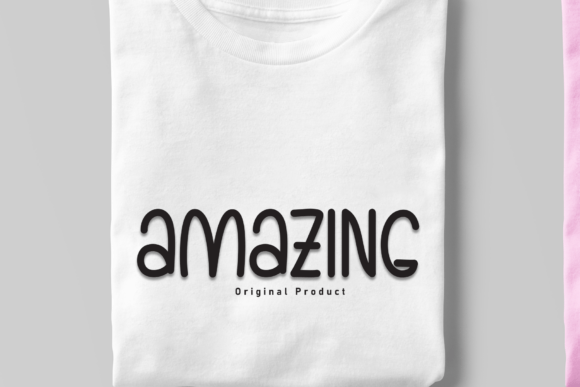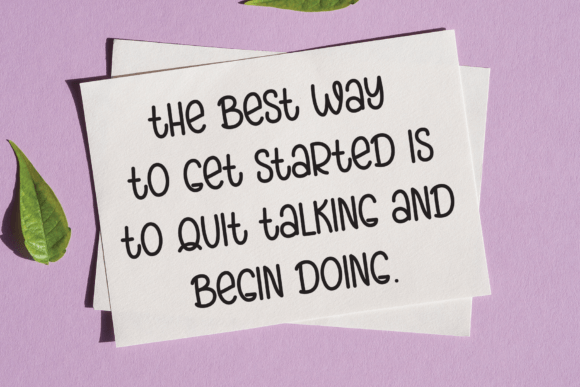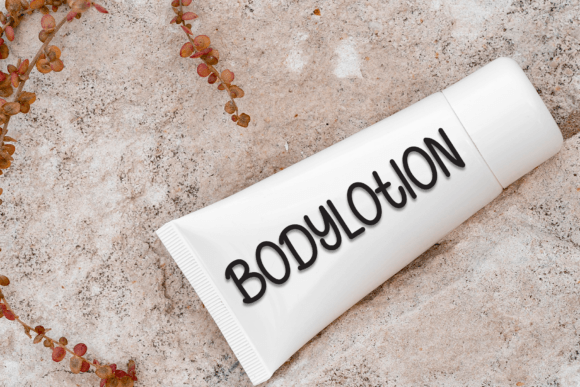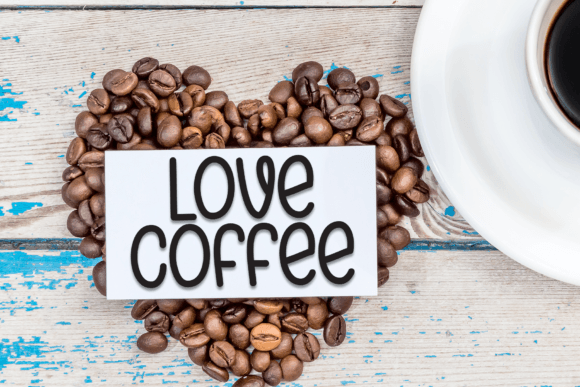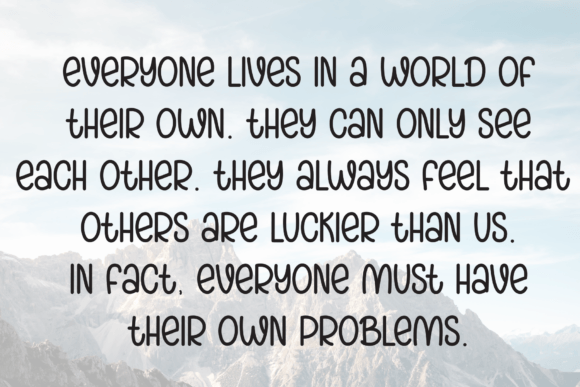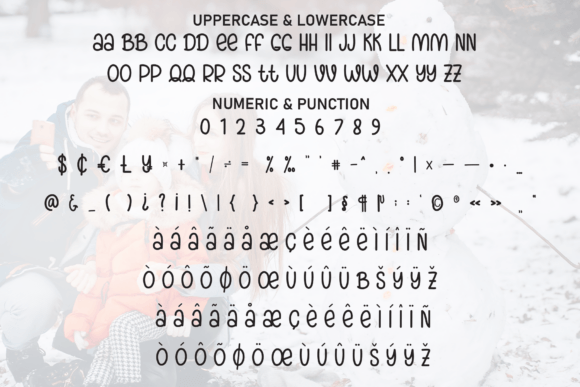
Daddy Snowman Font: The Ultimate Display Font for Adding Warmth and Charm to Your Designs
Are you looking for a font that can add a touch of warmth and friendliness to your designs? Look no further than the Daddy Snowman Font. This beautifully crafted handwritten display font is designed to infuse sweetness and charm into every stroke, making it perfect for wedding invitations, cards, and any design that seeks an endearing touch.
A Font that Exudes Joy and Creativity
The Daddy Snowman Font is inherently delightful and captivating, with a jovial spirit that is sure to bring a smile to anyone’s face. Its soft and whimsical strokes exude a sense of creativity and joy, making it the perfect addition to any design. Whether you’re a designer, crafter, or DIY enthusiast, this font is sure to inspire you to create something truly special.
Wedding invitations and cards are a great way to showcase the Daddy Snowman Font. Its elegant and whimsical strokes make it perfect for adding a touch of romance and charm to your wedding stationery. Imagine setting the tone for your special day with a beautiful handwritten font that exudes love, joy, and happiness.
The Daddy Snowman Font is not just limited to wedding invitations and cards. Its versatility makes it perfect for a wide range of design projects, including:
- Party invitations and decorations
- Stationery and journaling
Why Choose the Daddy Snowman Font?
So why choose the Daddy Snowman Font over other display fonts? Here are just a few reasons:
- Unique and eye-catching: The Daddy Snowman Font is a one-of-a-kind font that is sure to grab attention and stand out from the crowd.
- Easy to read: Despite its whimsical nature, the Daddy Snowman Font is surprisingly easy to read, making it perfect for body text and headings.
- Highly versatile: The font comes in a range of styles and weights, making it suitable for a wide range of design projects.
- Impeccable quality: The Daddy Snowman Font is meticulously crafted to ensure that it is of the highest quality, with clean lines and precise curves.
Tips for Using the Daddy Snowman Font
Here are a few tips for getting the most out of the Daddy Snowman Font:
- Use it sparingly: While the Daddy Snowman Font is beautiful, it can be overwhelming if used too much. Use it sparingly to add a touch of elegance and whimsy to your designs.
- Mix and match: Don’t be afraid to mix and match the Daddy Snowman Font with other fonts to create a unique and eye-catching combination.
- Experiment with colors: The Daddy Snowman Font looks great in a range of colors, so don’t be afraid to experiment and find the perfect hue for your design.
Whether you’re a designer, crafter, or DIY enthusiast, the Daddy Snowman Font is sure to inspire you to create something truly special. So go ahead, get creative, and let the Daddy Snowman Font bring a touch of joy and whimsy to your designs.